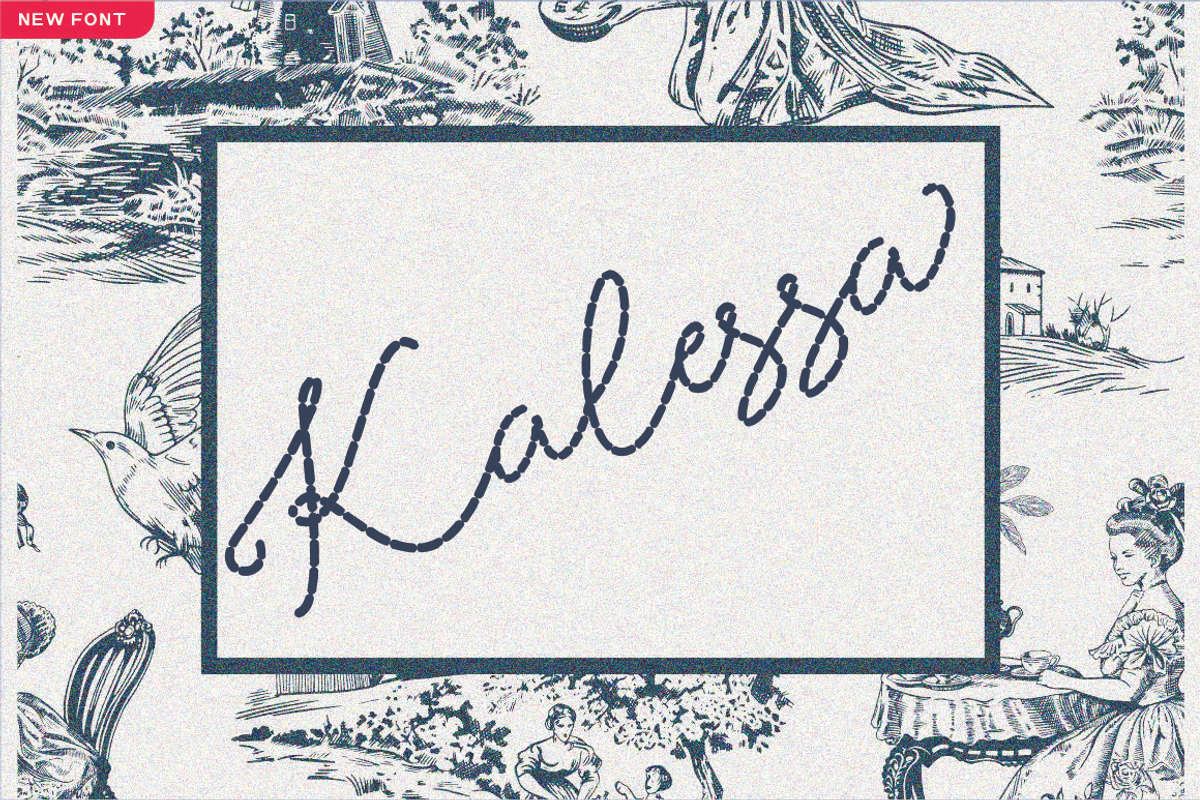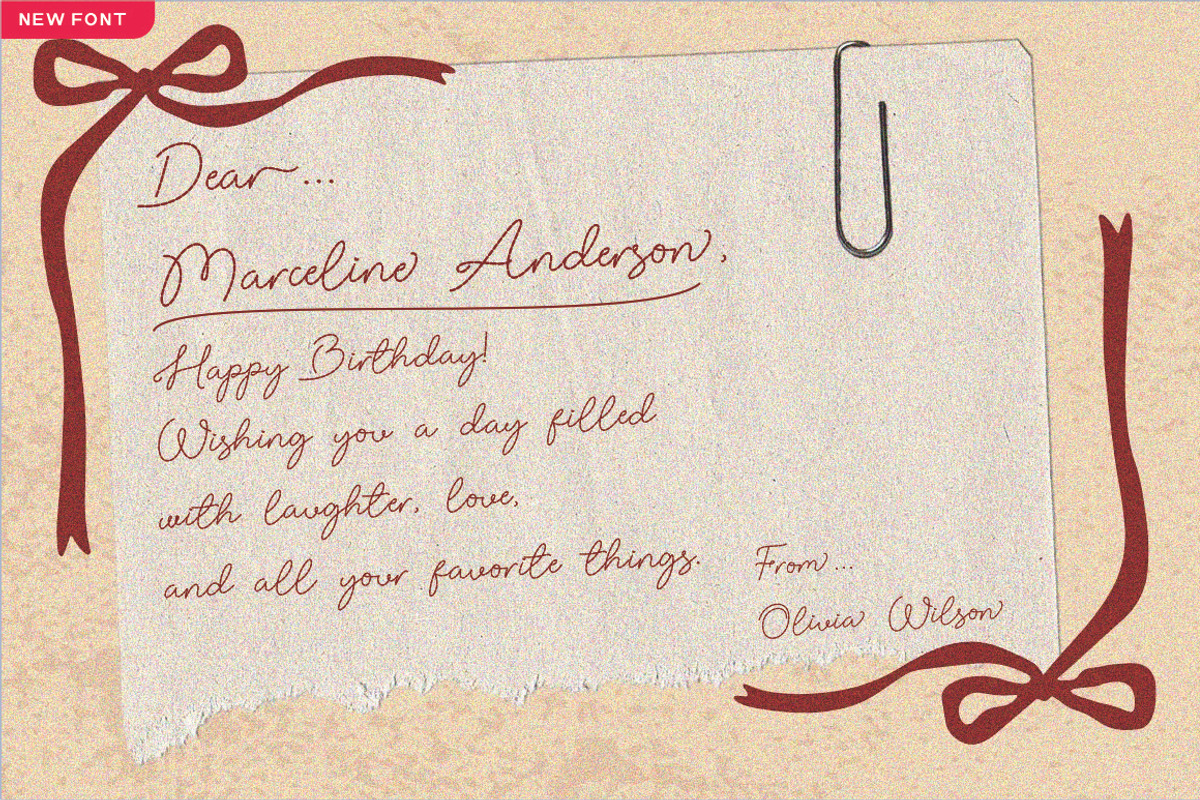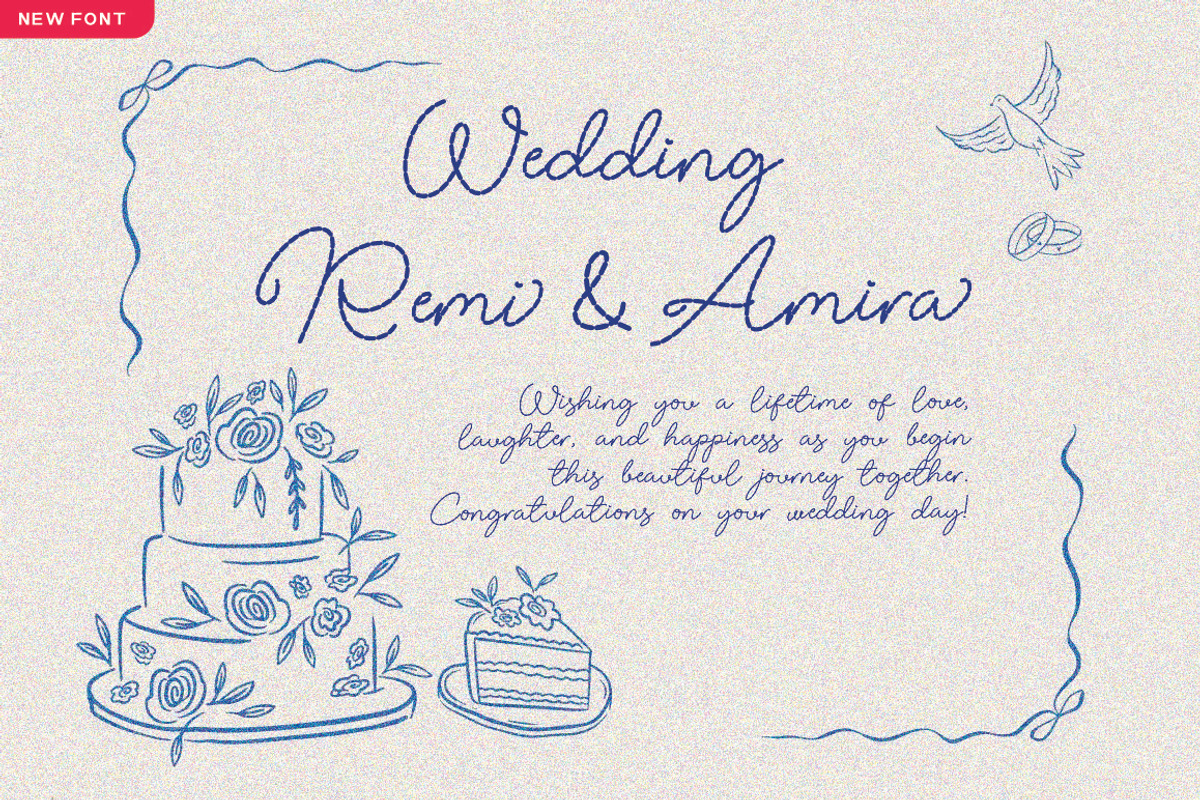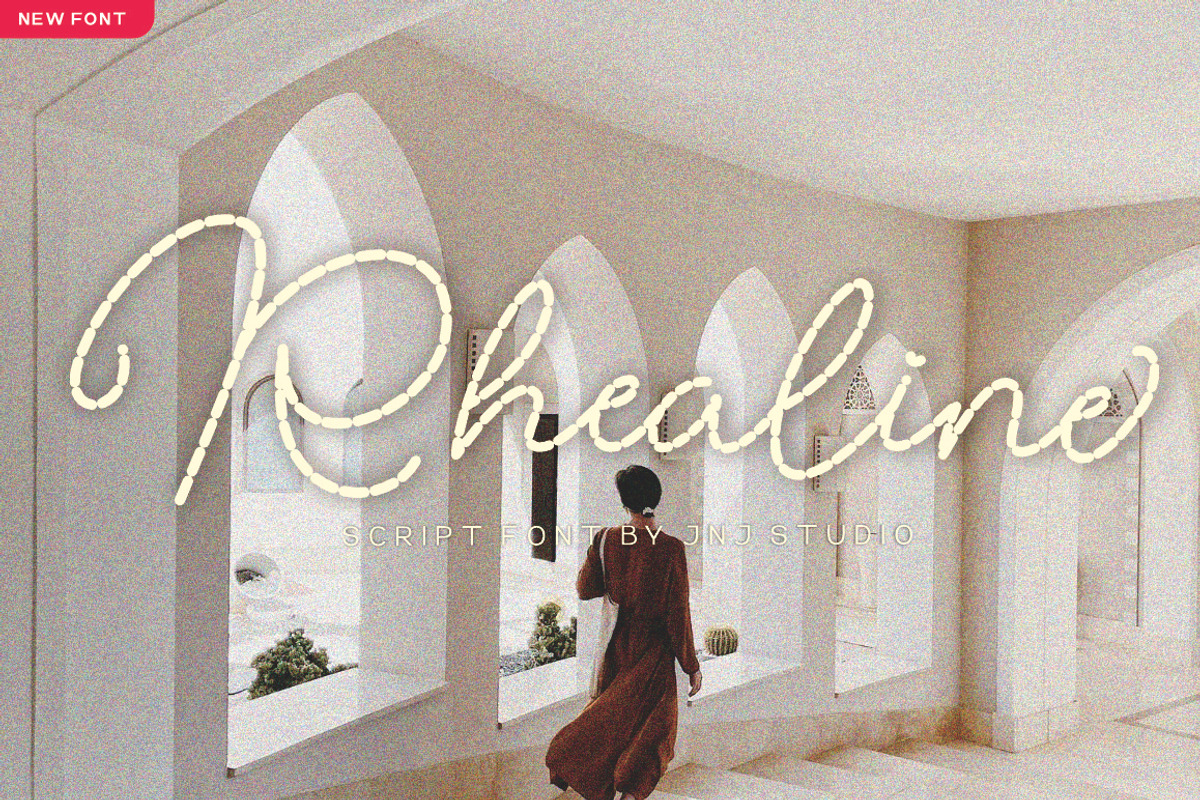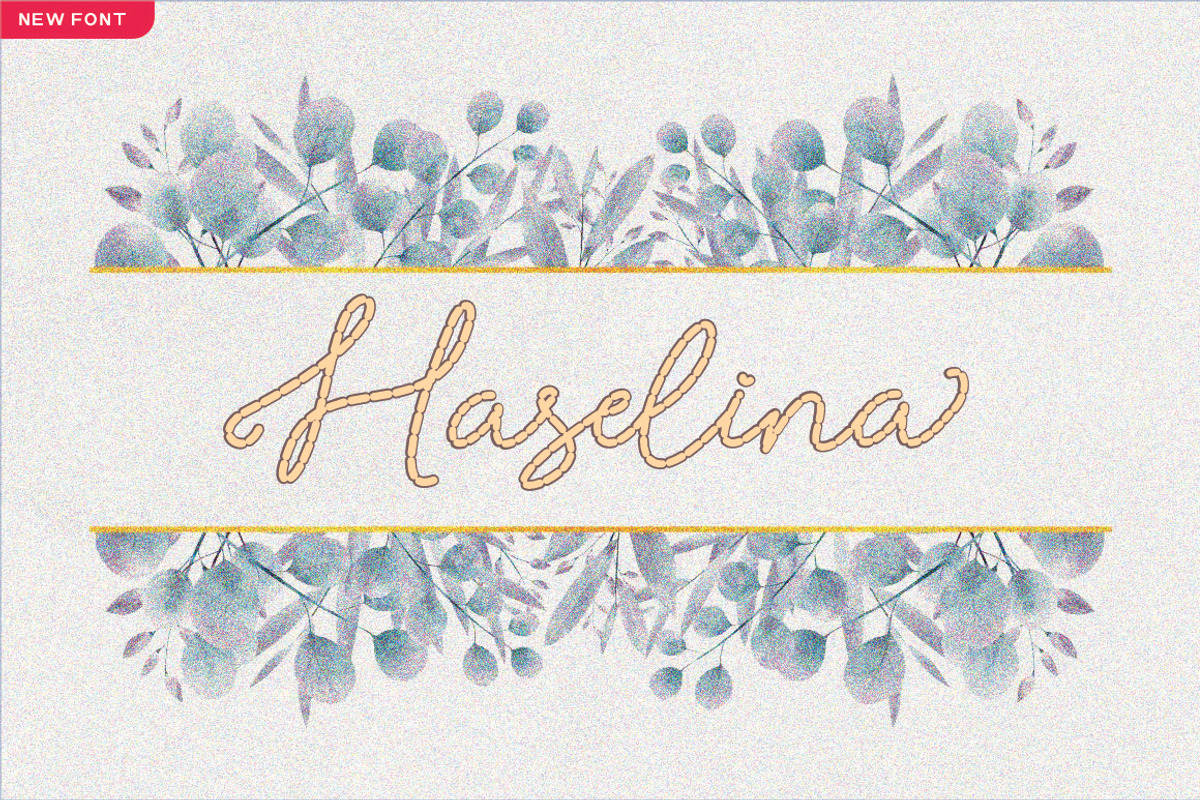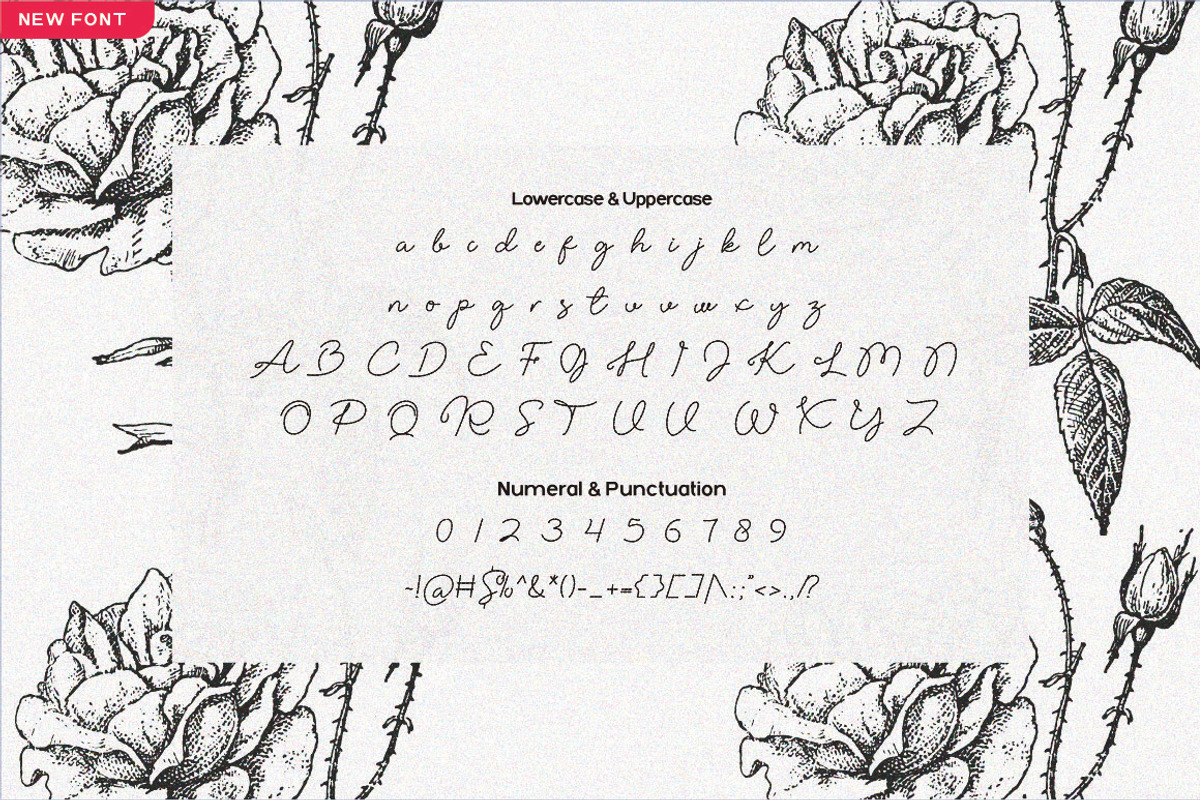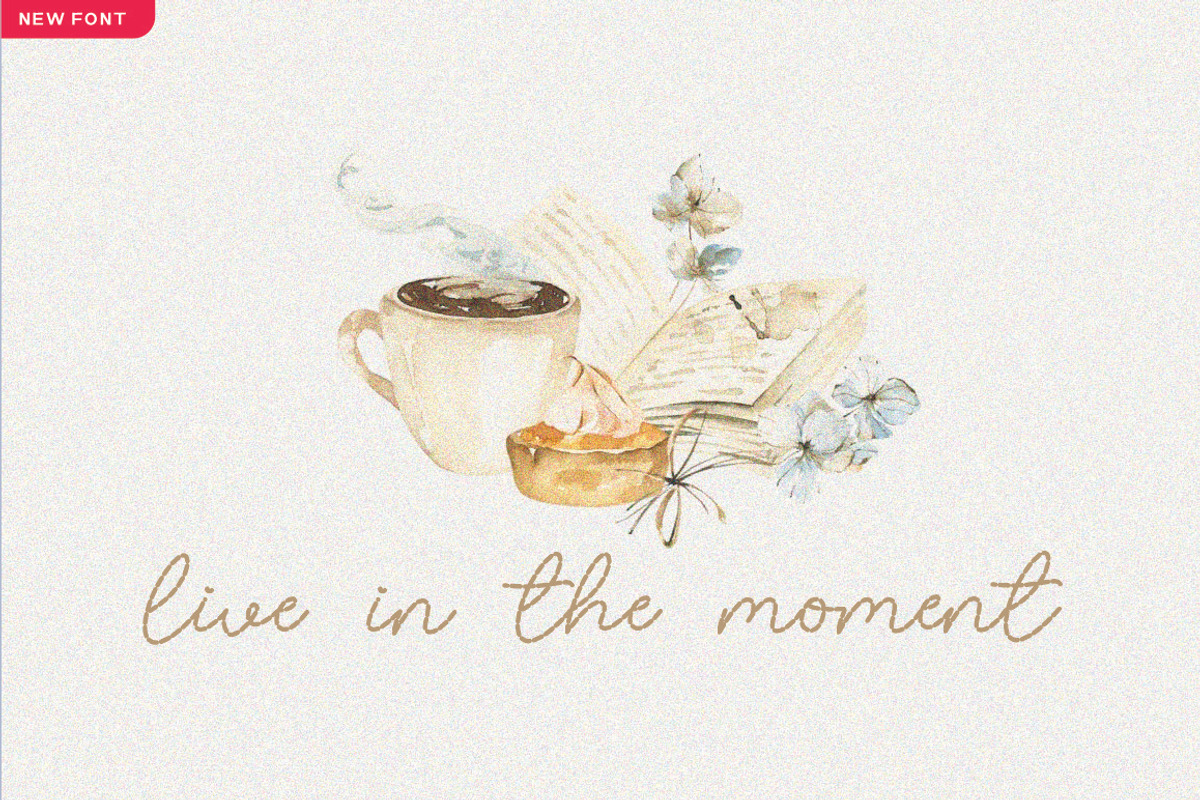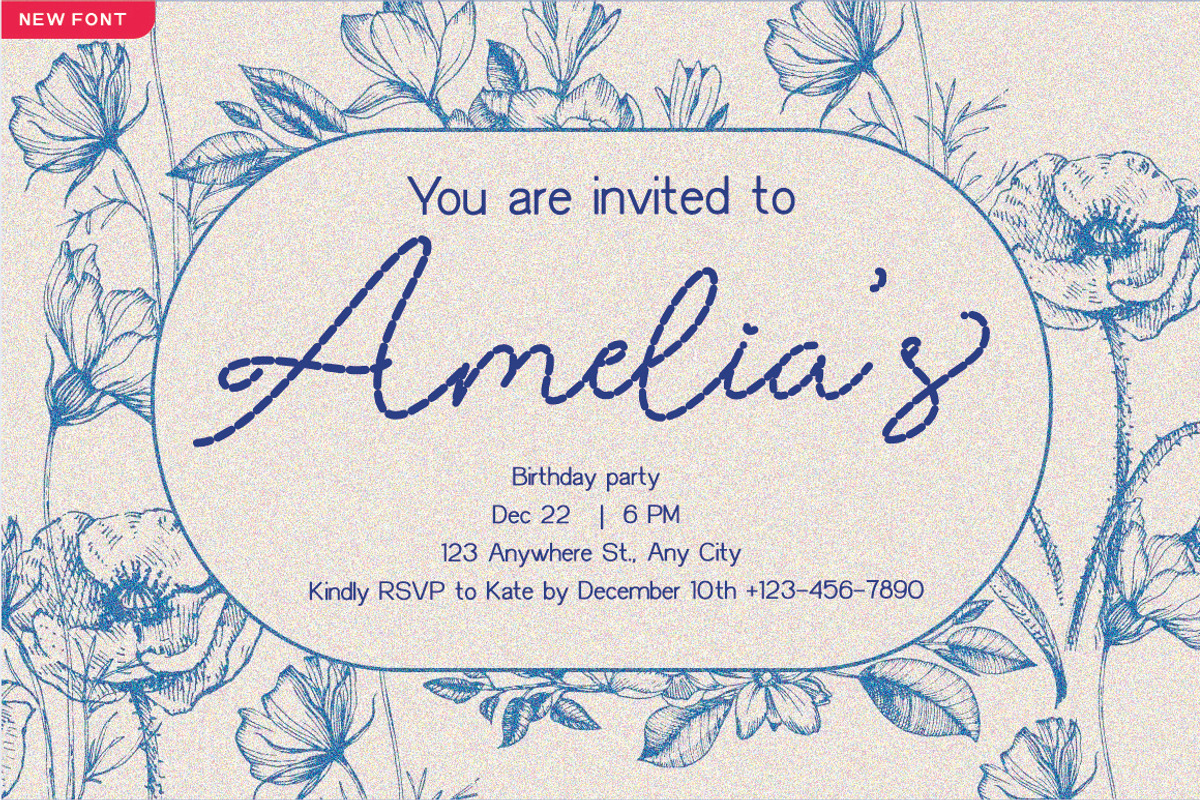
Rhea Line Script
Rhealine is a distinctive script font featuring a delicate dashed-line style that gives the impression of handwritten strokes that flow in gentle breaks. Its elegant curves and slightly disconnected lines create a light, airy aesthetic while still maintaining readability. The design blends the charm of classic calligraphy with a modern, playful twist, making it feel both artistic and unique.
The dotted, broken strokes add a sense of movement and creativity, as if the letters were drawn with a guiding line or stitching pattern. This characteristic makes Rhealine perfect for projects that seek a soft, decorative, and handcrafted look.
- Stylish uppercase & lowercase letters
- Ideal for personal branding, stationery, and packaging